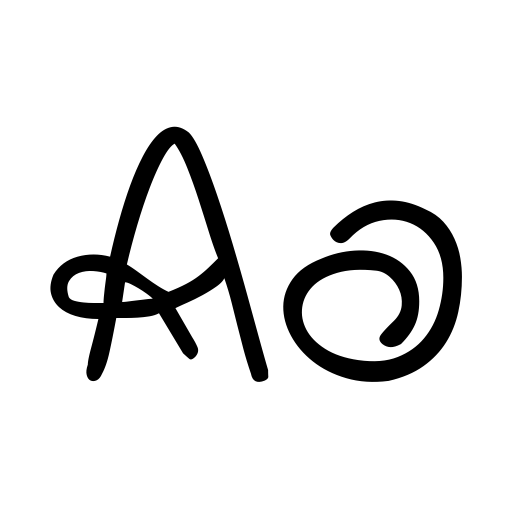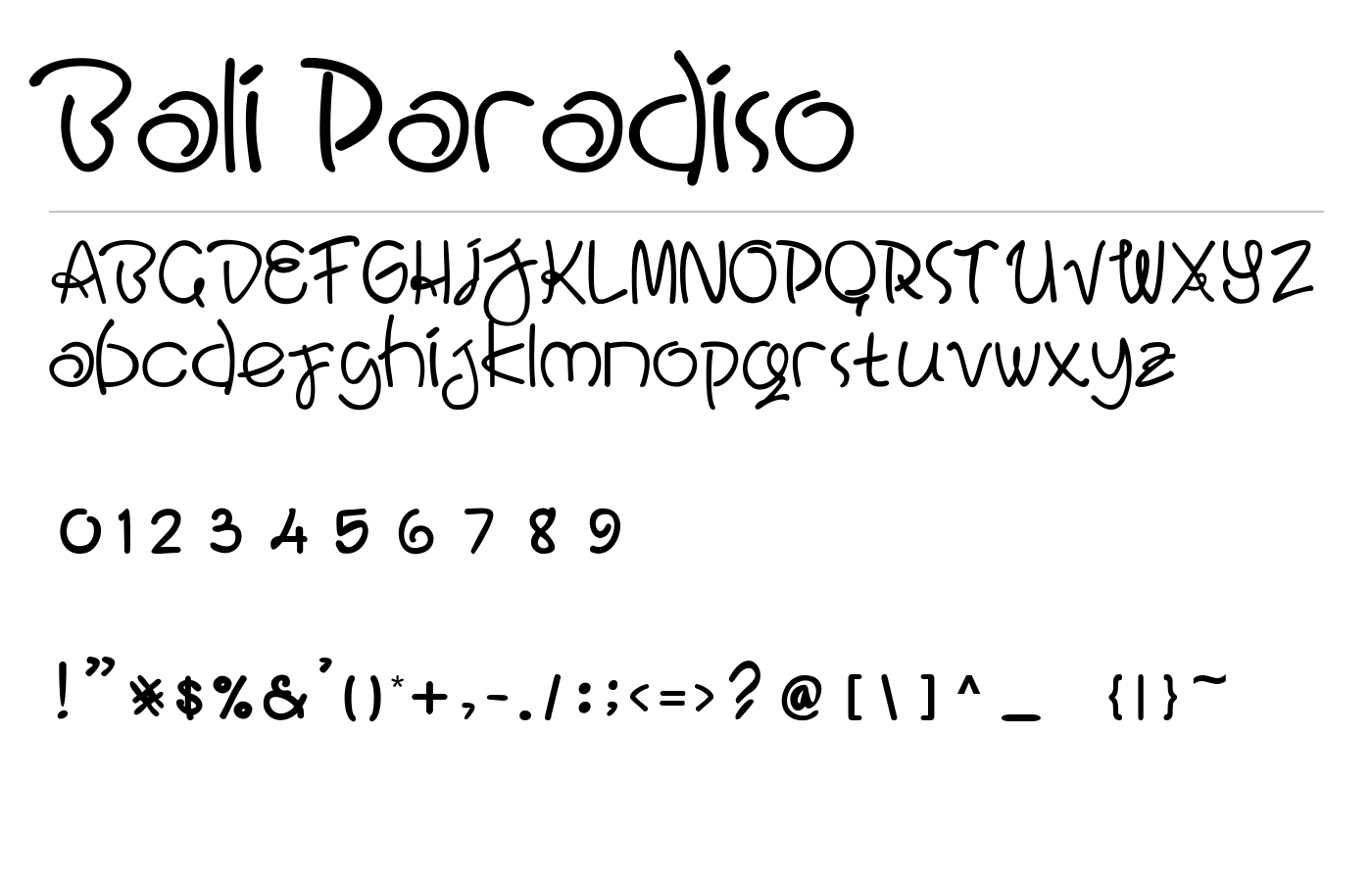
Bali Paradiso is a whimsical, handwritten sans serif font with playful, rounded strokes and a casual, friendly feel. Its light weight and slightly irregular letterforms make it perfect for creative projects that want to convey a relaxed, approachable personality. This font works well for informal branding, children’s books, invitations, and any design seeking a fun and personal touch.
Bali Paradiso Font
About Bali Paradiso Font